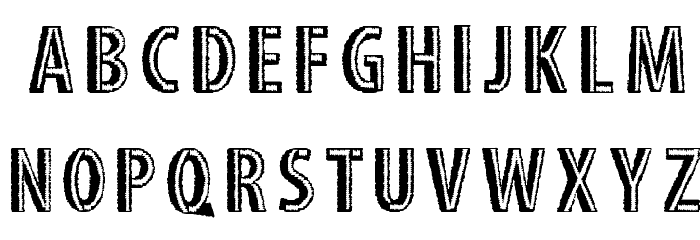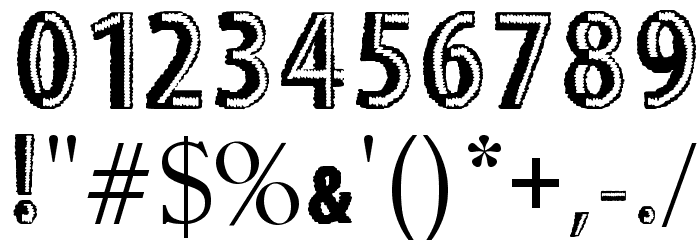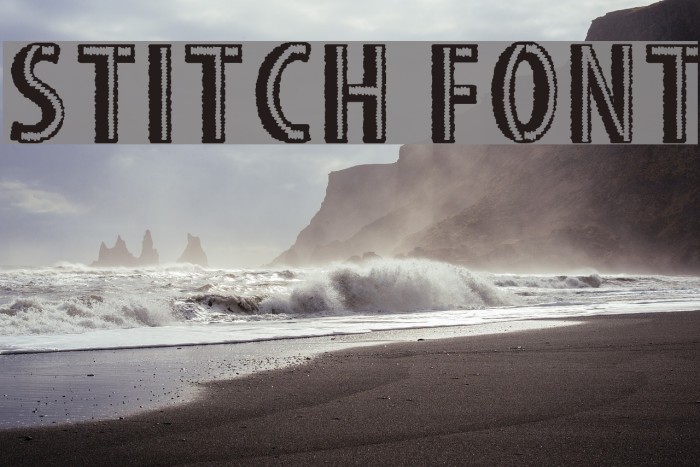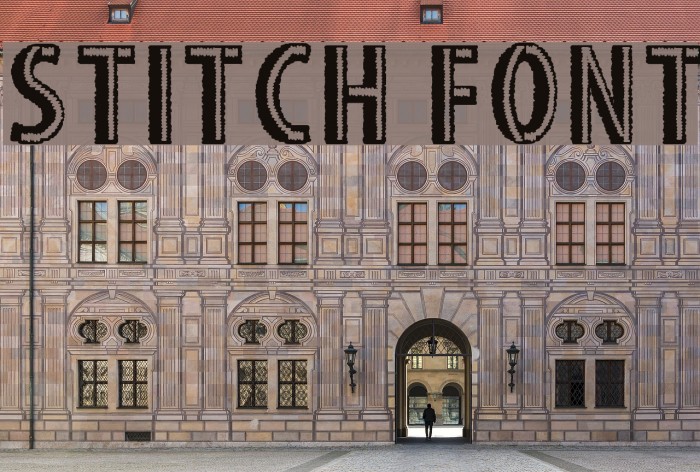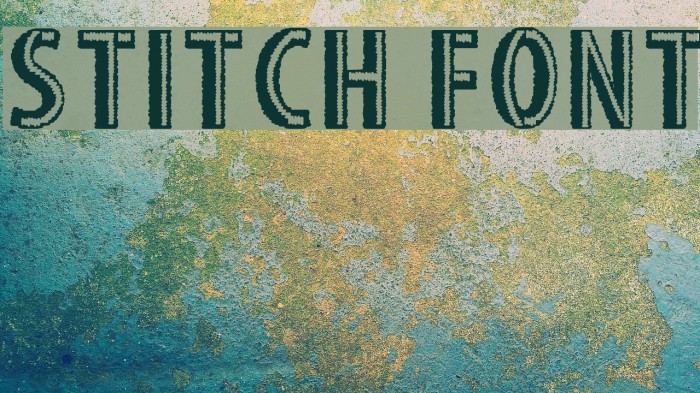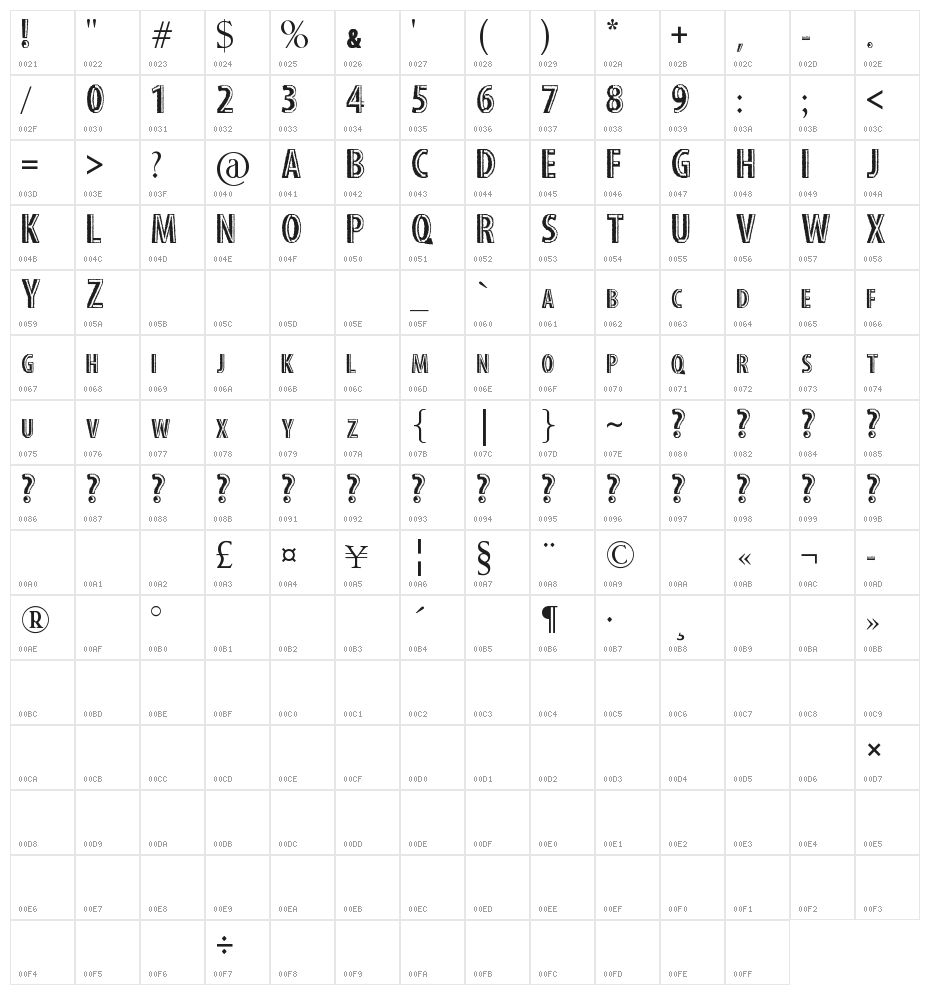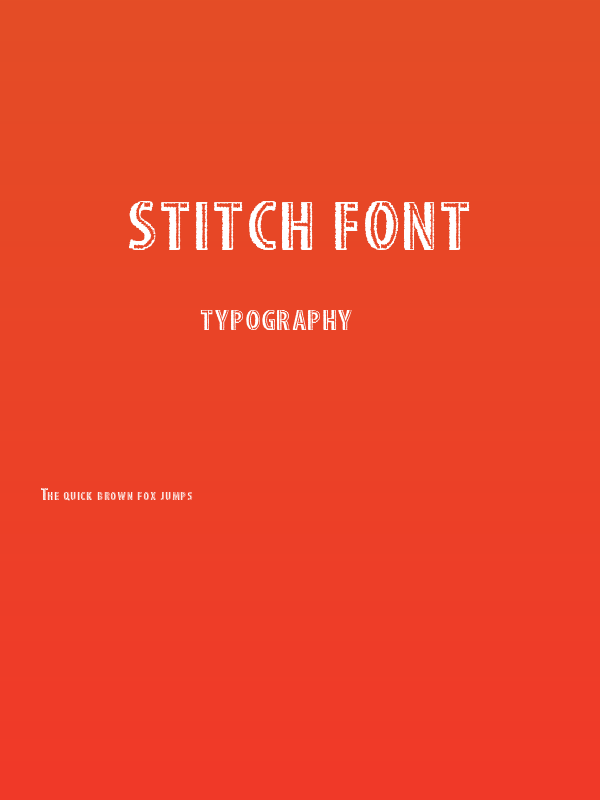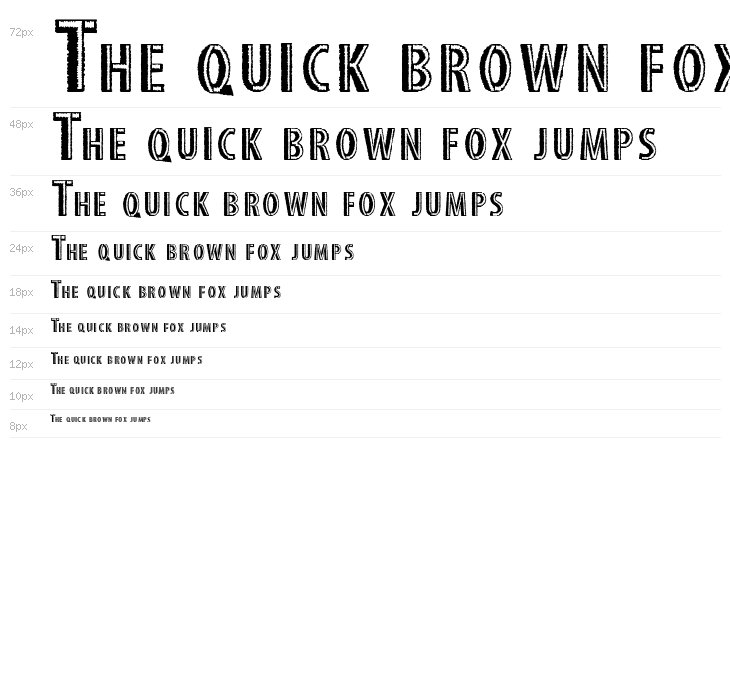
STITCH FONT Font
This font features a unique stitched appearance, reminiscent of embroidery or sewing patterns. Each character is outlined with a bold, dark border, while the interior is filled with a textured, dashed line pattern that mimics the look of stitches. The overall style is playful yet structured, making it suitable for designs that require a handcrafted or artisanal touch. The uppercase and lowercase letters maintain consistent proportions, ensuring readability while adding a decorative flair. Numbers and special characters are designed with the same attention to detail, providing a cohesive look across all elements.
A decorative font with a stitched, embroidered appearance.